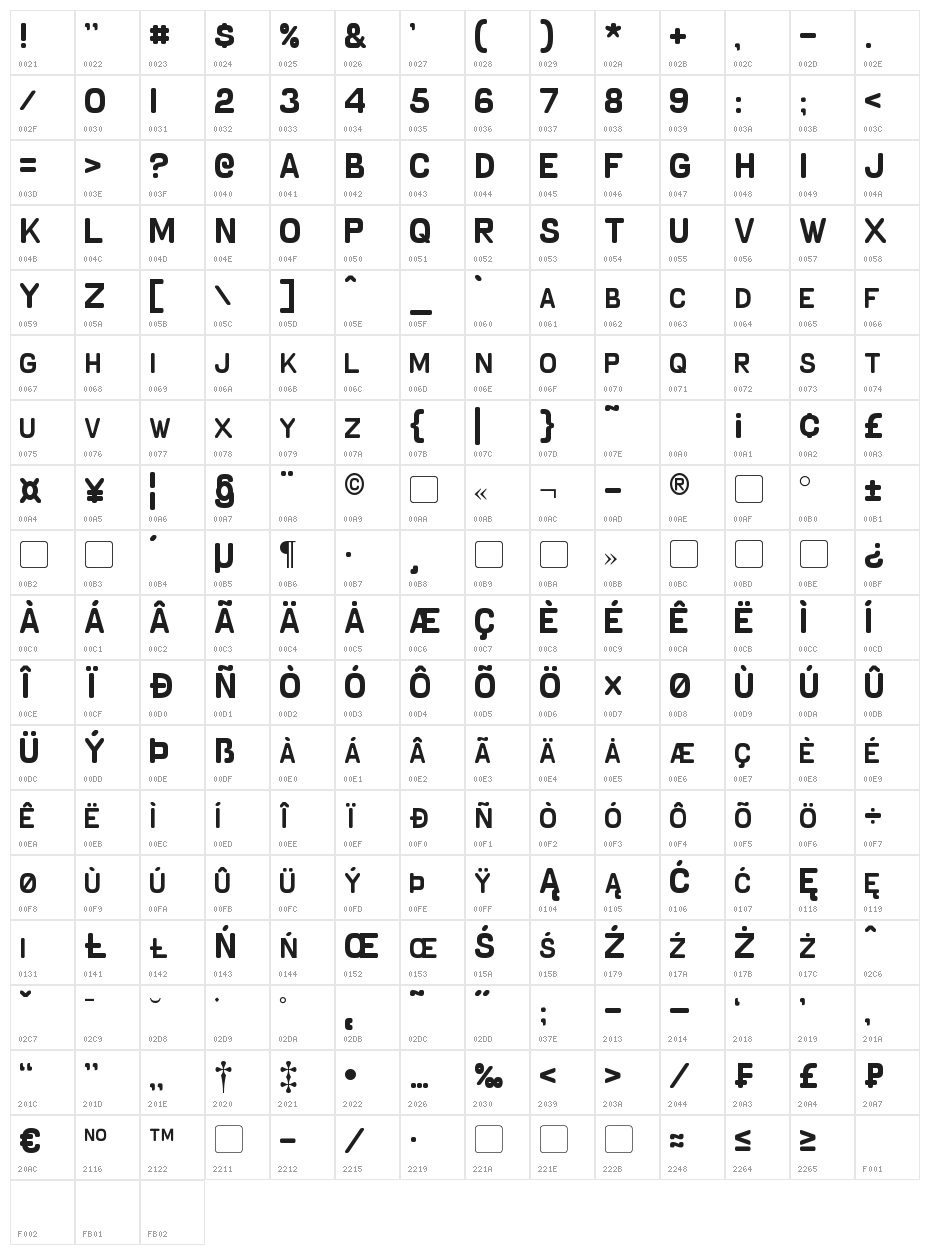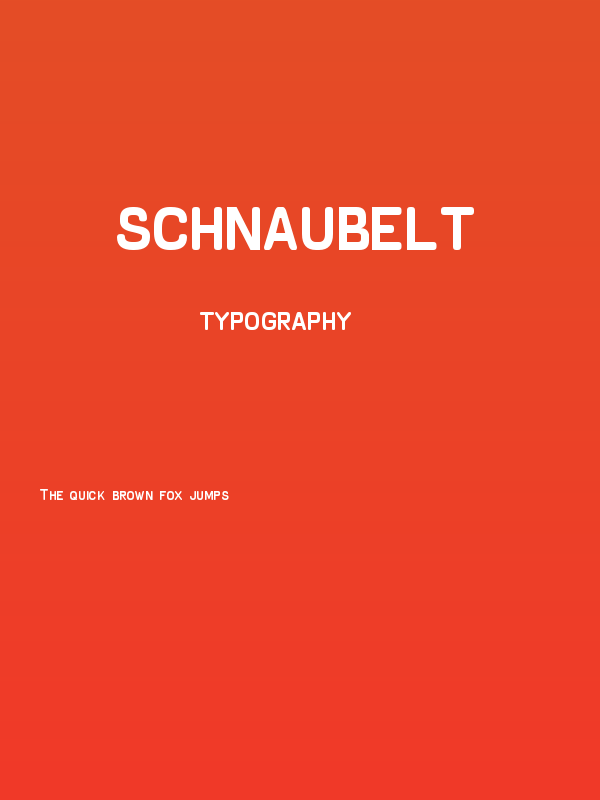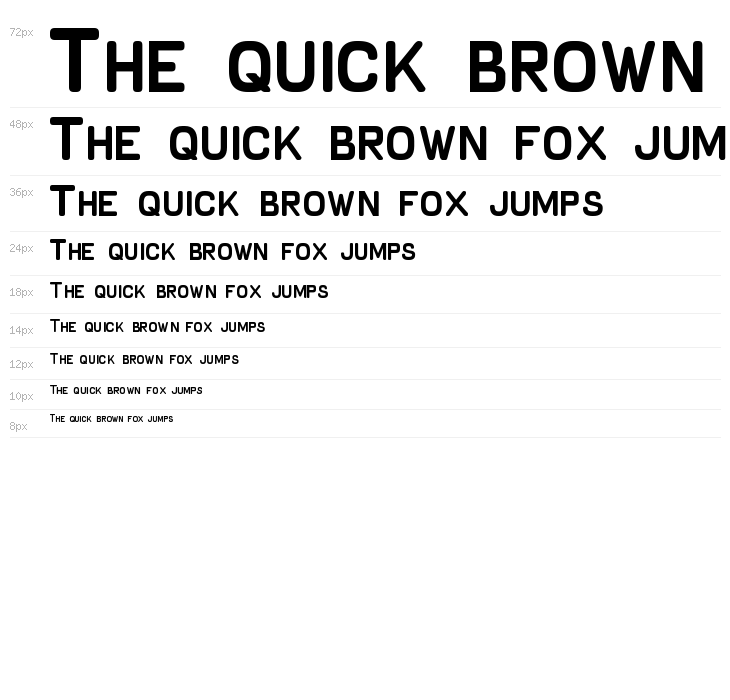
Schnaubelt Font
Schnaubelt Description
This font features a bold and modern sans-serif style with clean lines and uniform stroke widths. The characters are well-defined and slightly condensed, offering a sleek and professional appearance. The uppercase and lowercase letters maintain a consistent design, providing a harmonious look across different text sizes. The numerals are clear and easy to read, making them suitable for various applications. Special characters are included, ensuring versatility in usage. The overall design is contemporary, making it ideal for projects that require a strong and impactful visual presence.
| Use Case | Headlines, Logos, Advertising |
| Proposed Projects | Ideal for branding, advertising, headlines, and digital media where a strong, modern presence is desired. |